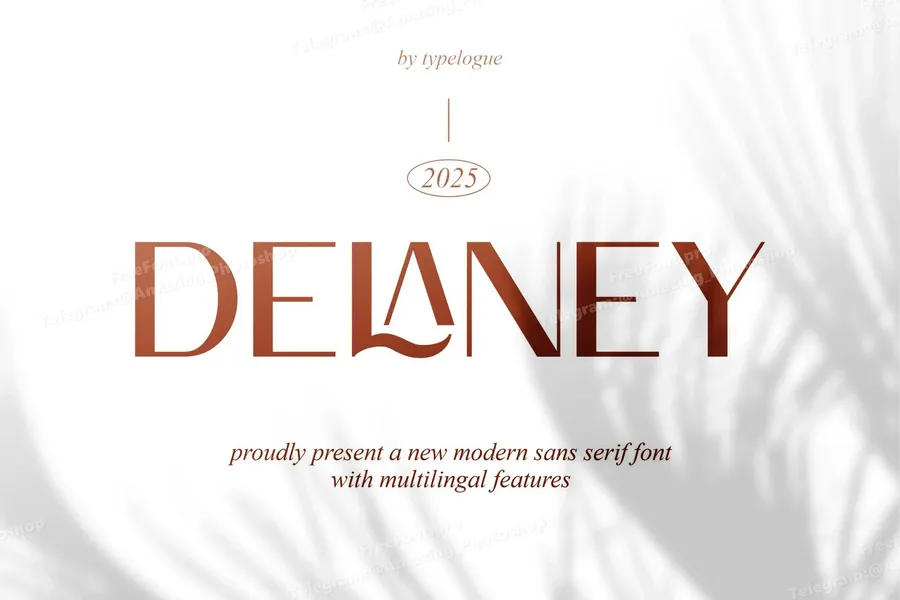
Delaney is a fresh and artistic modern sans-serif font crafted to capture attention with its creative character design. Each letter is uniquely styled, giving your typography a distinct, stylish personality—perfect for branding, editorial headlines, fashion campaigns, or social media visuals.
With its elegant curves and contemporary flair, Delaney is both versatile and expressive. It supports multilingual features, making it ideal for global brands seeking originality and sophistication. Whether you’re building a logo or creating bold design statements, Delaney delivers standout visuals with a modern edge.